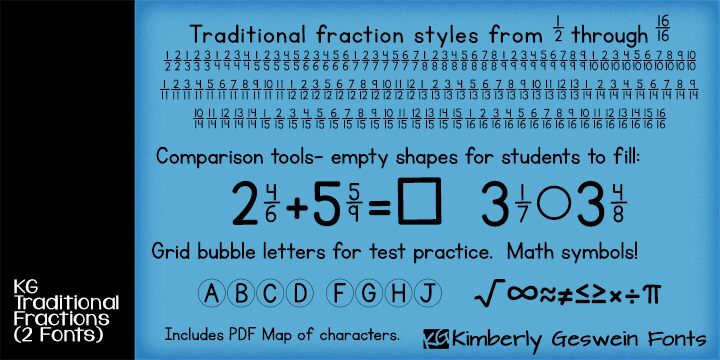
PERFECT for teachers, this font includes all fractions from 1/2 through 10/10 and basic math symbols. This allows you to easily create math games and worksheets for your students!
KG Traditional Fractions
Kimberly Geswein